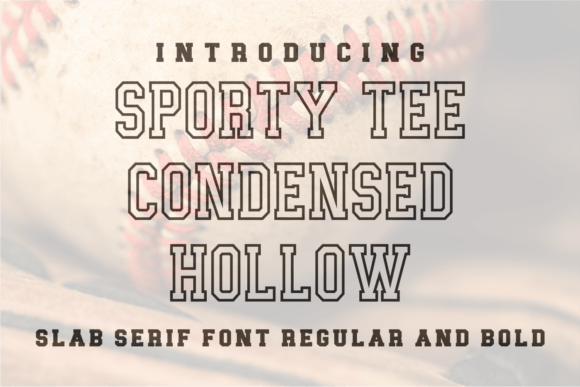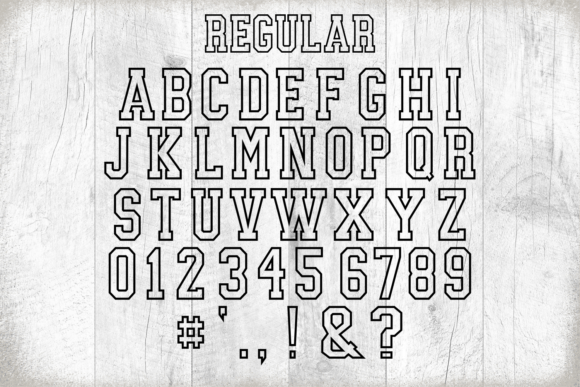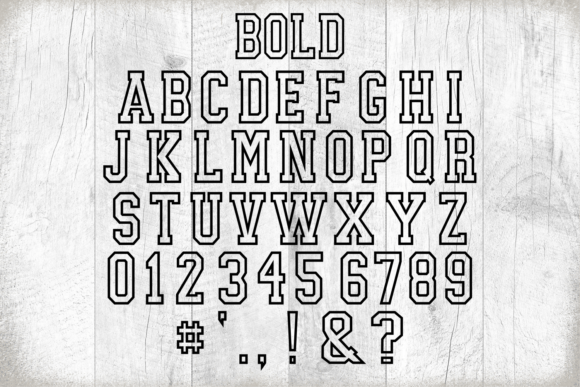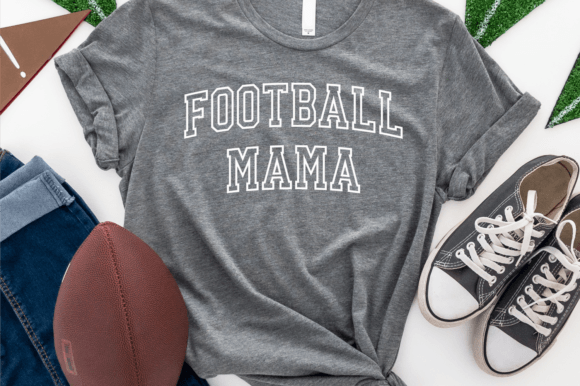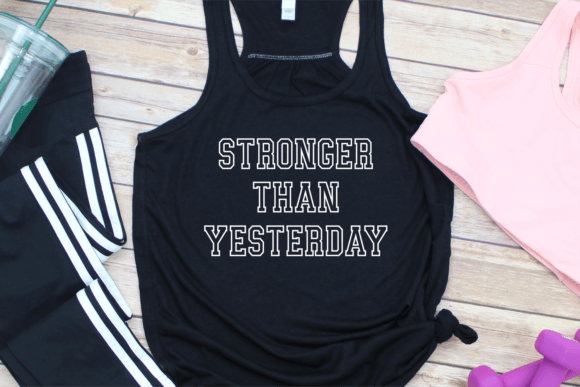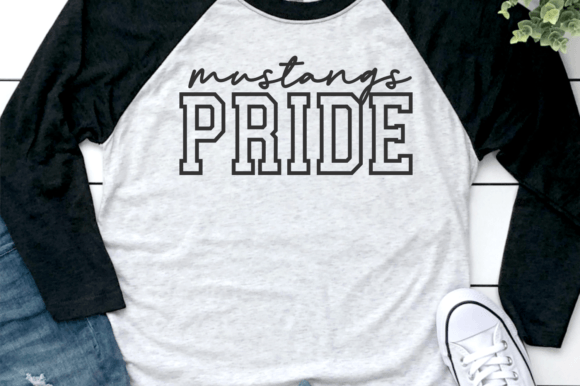
Sporty Tee Condensed Hollow is a tall sport font that comes in two versions – regular and bold. It looks powerful and is created to add a vibrant touch to your sport-inspired designs. Suitable for sports design, team, jersey, league, movie, documenter, film, logo, poster, game, book cover, headlines, title, and many more projects.
Sporty Tee Condensed Hollow Font